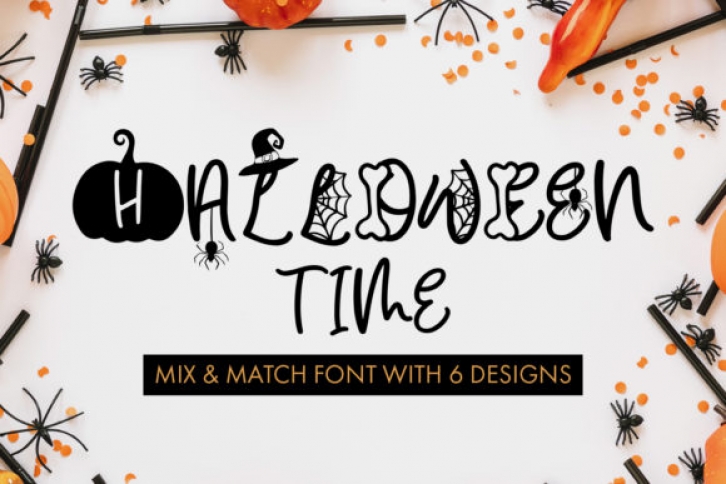
Halloween Time is a great display font. It comes packed in 3 styles that make it extremely versatile. This versatility will appeal to a wide range of crafty ideas, from letterheads and titles, to stationery. Take your Halloween’s projects to the next level with this amazing font.